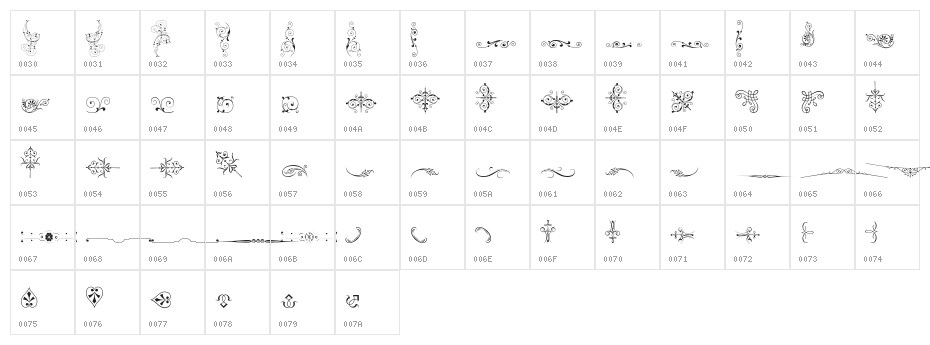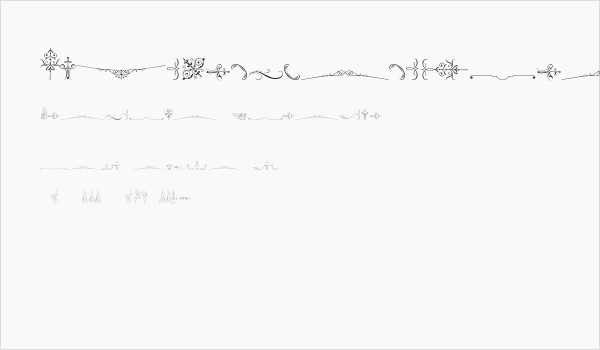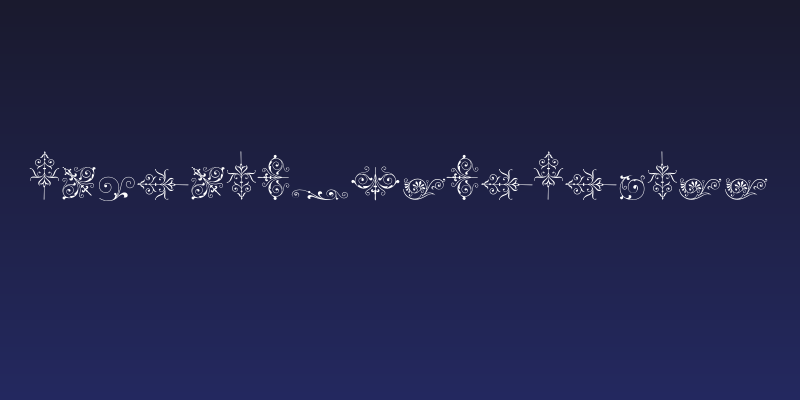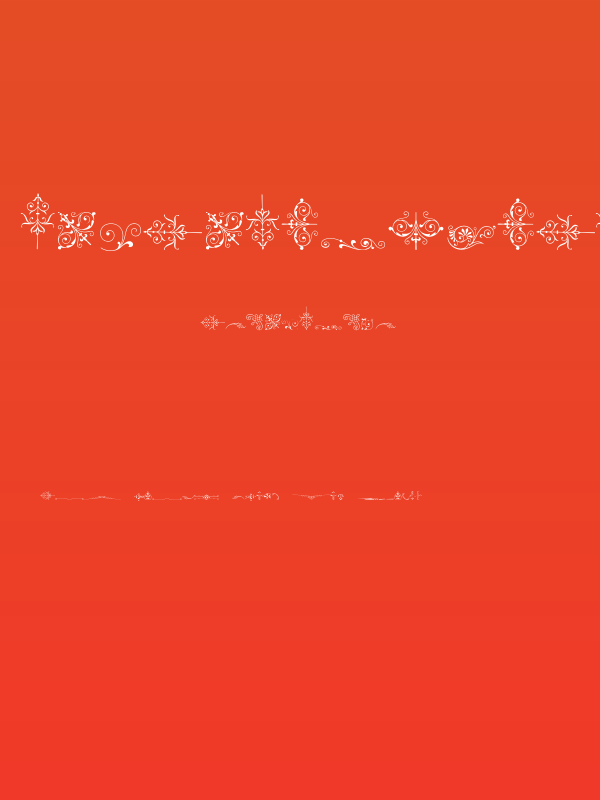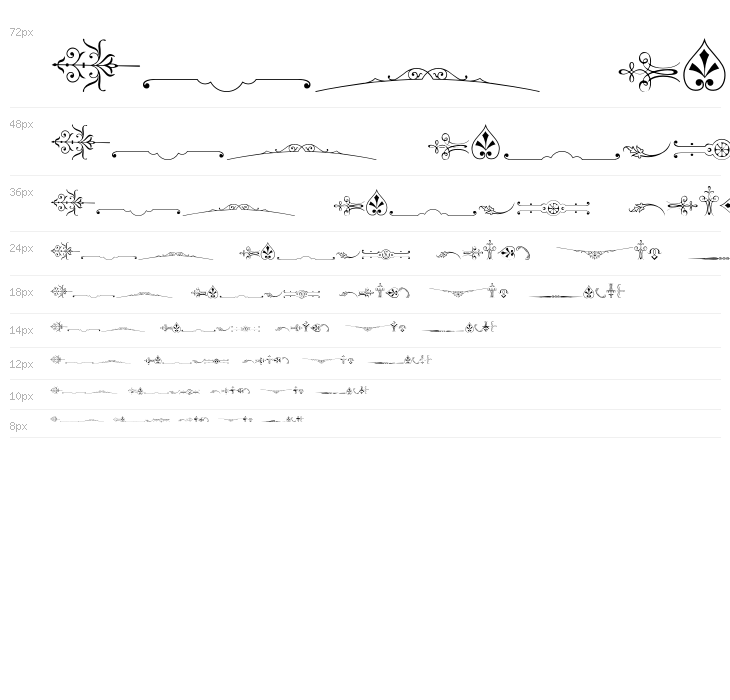
SoftOrnamentsThree Font
SoftOrnamentsThree Description
This collection of ornamental designs features intricate and elaborate patterns, showcasing a variety of swirling and floral motifs. The designs are highly decorative, with a focus on symmetry and elegance, making them ideal for embellishing documents, invitations, or any creative project that requires a touch of sophistication. The elements are diverse, ranging from simple flourishes to complex compositions, each crafted with attention to detail. These ornaments can be used to create borders, dividers, or standalone decorative elements, adding a classic and artistic flair to any visual presentation.
| Use Case | Decorative elements, Borders, Invitations |
| Proposed Projects | Ideal for wedding invitations, certificates, decorative borders, and artistic projects requiring elegant embellishments. |